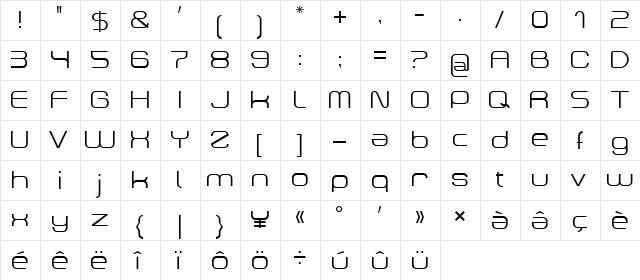
Dekers_light Dekers_light
| Foundry | BenoԴ Sjڨolm |
| Designer | BenoԴ Sjڨolm |
Design Context for Dekers_light Typeface
Dekers_light is a composed and adaptable typeface that performs quietly and consistently across a wide range of design contexts. Its slender proportions lend an understated elegance to any composition.